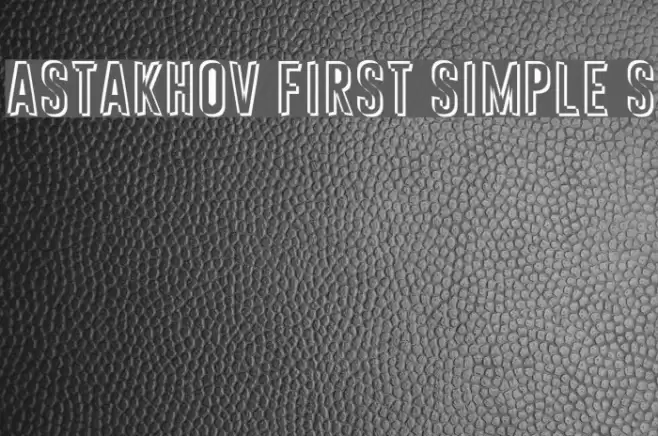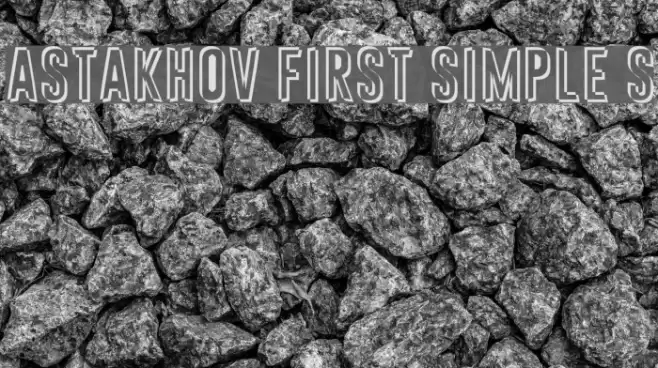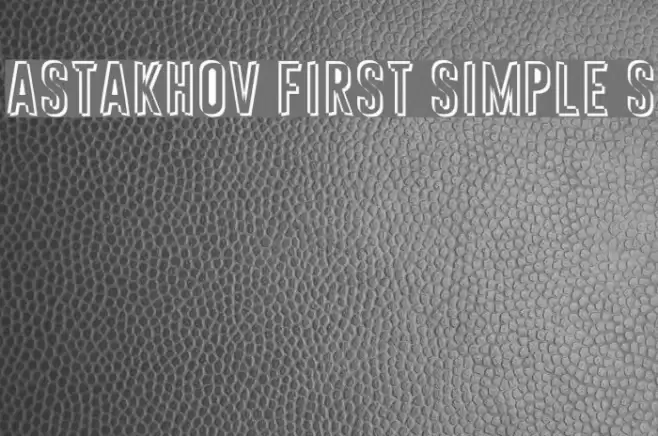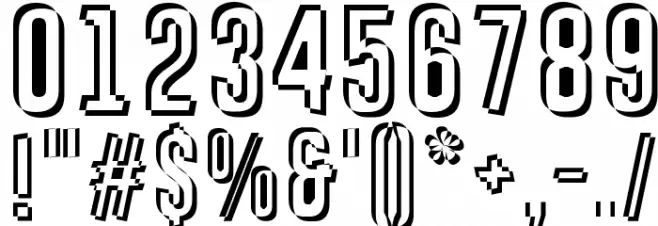
Astakhov First Simple S Font
Astakhov First Simple S Description
This font features a bold, outlined style with a strong presence. Each character is designed with a thick outer border and a hollow interior, creating a striking contrast that emphasizes its boldness. The uppercase and lowercase letters maintain a consistent height, providing a uniform appearance. The numbers and special characters follow the same design principles, ensuring cohesion across all elements. The font's geometric structure and clean lines give it a modern and dynamic feel, making it suitable for attention-grabbing designs. Its distinct style is ideal for projects that require a bold statement.
A bold, outlined font with a modern and dynamic style from Uncategorized fonts.
- Proposed Projects: Ideal for posters, headlines, logos, and branding materials that require a bold and eye-catching design.